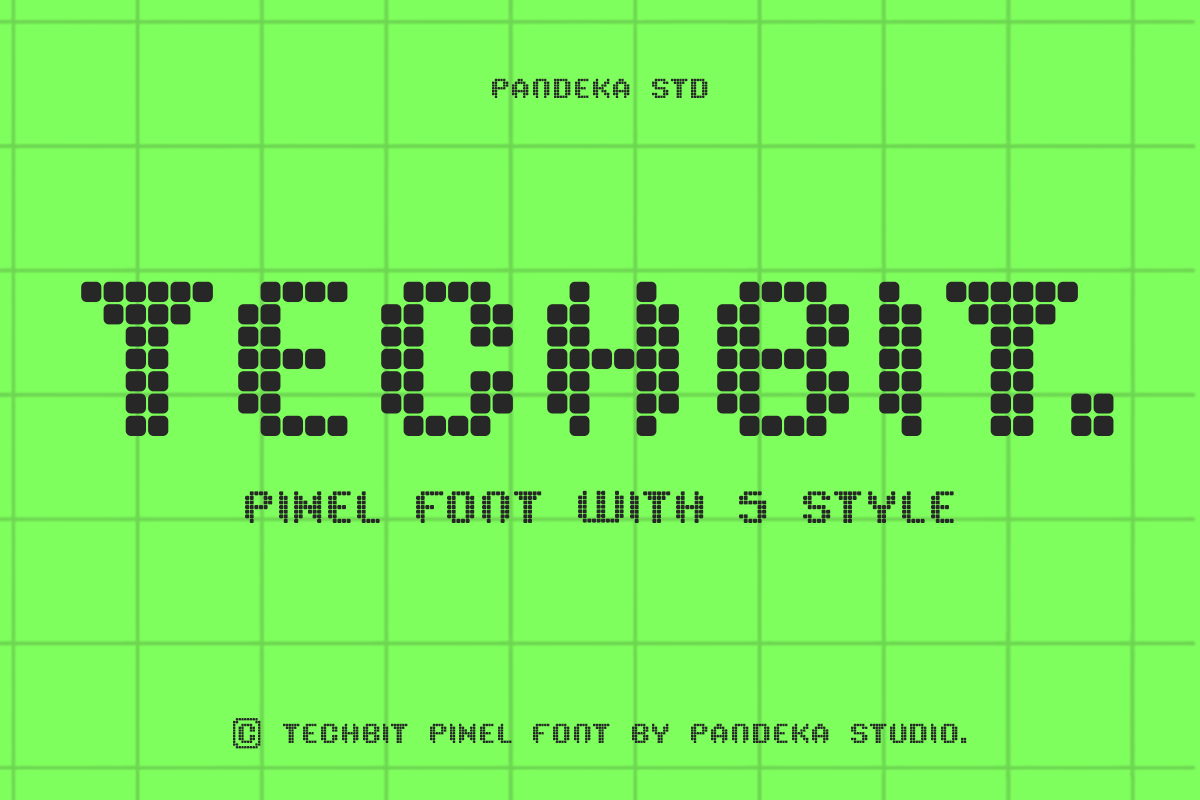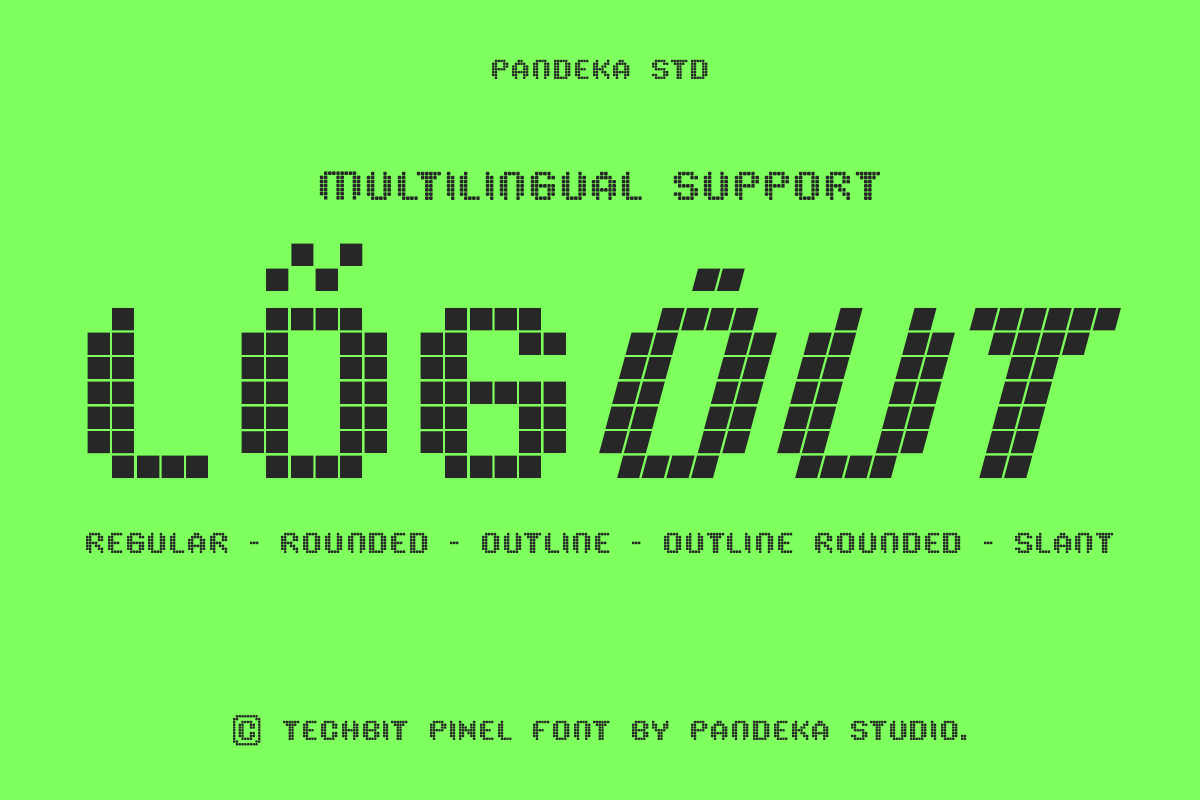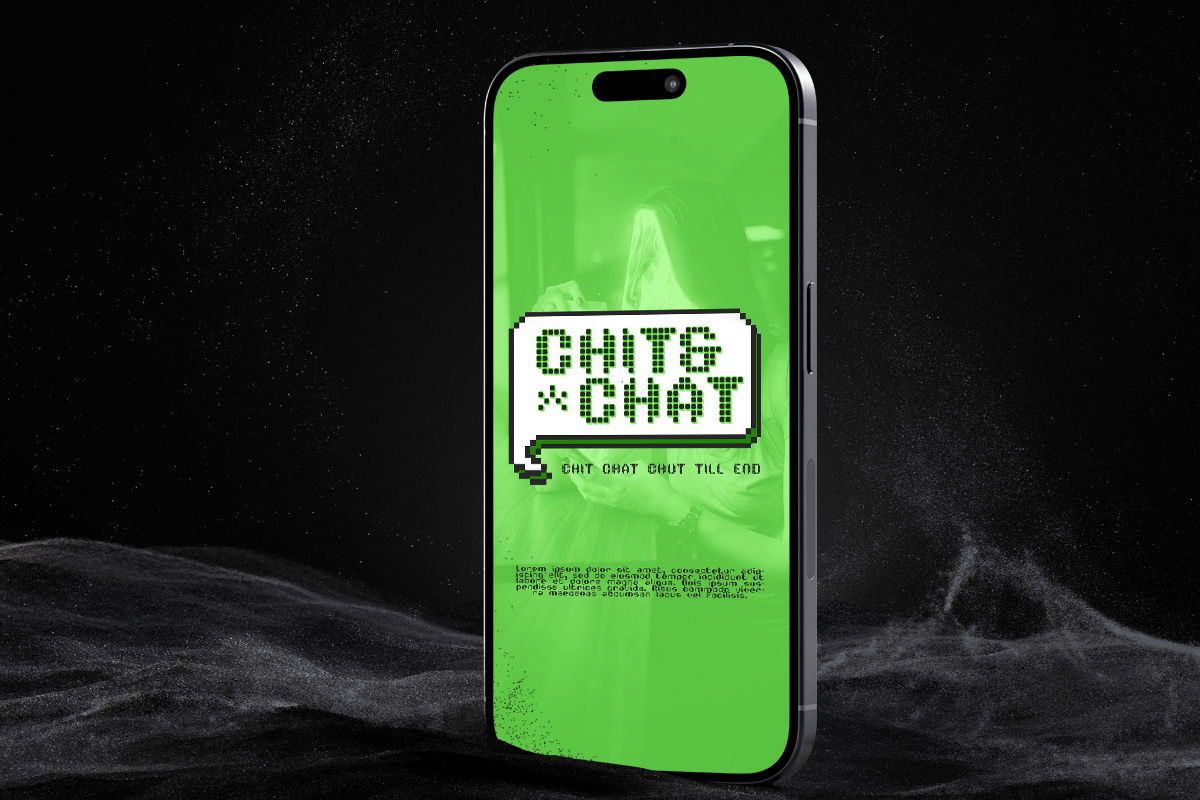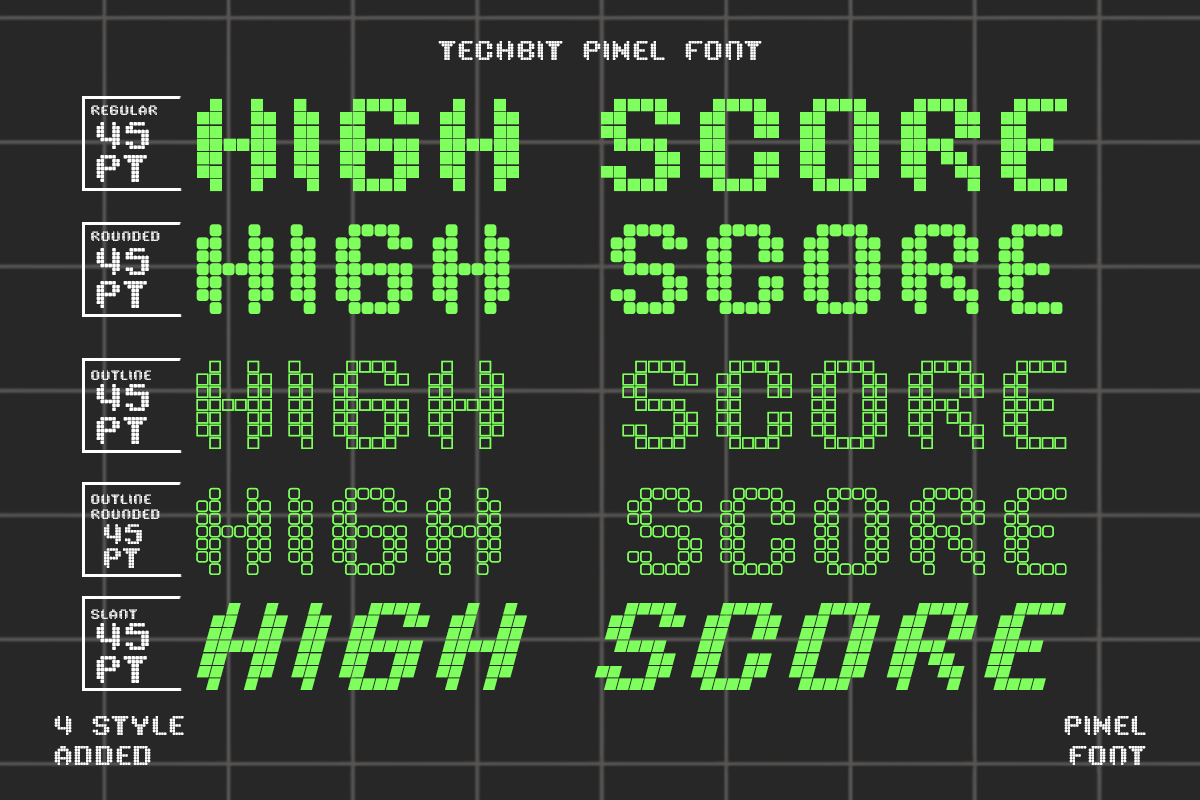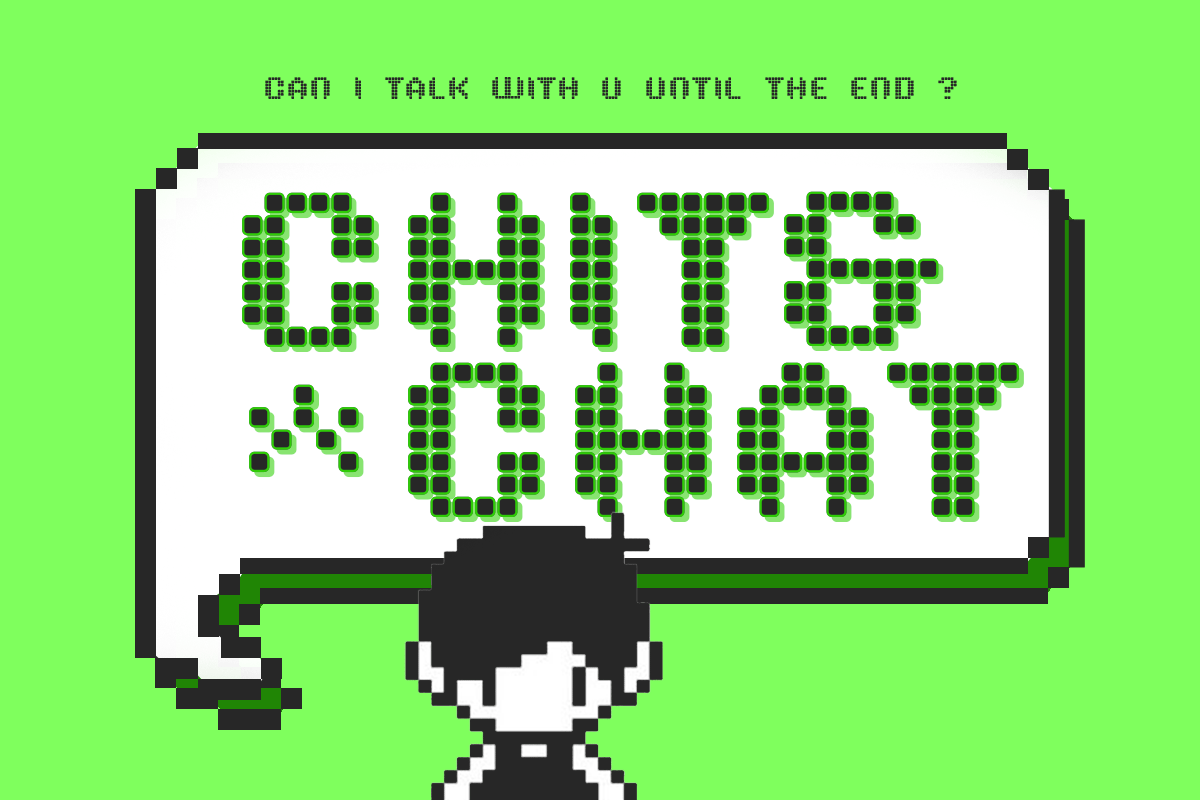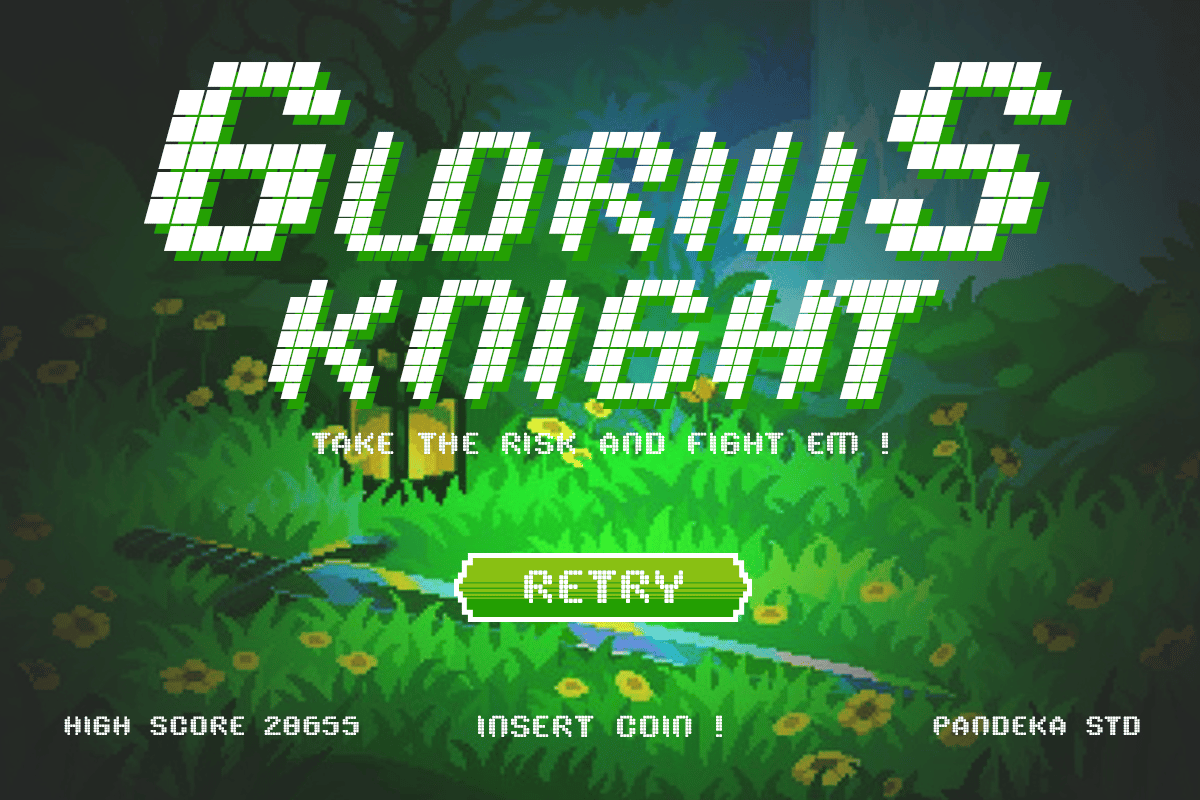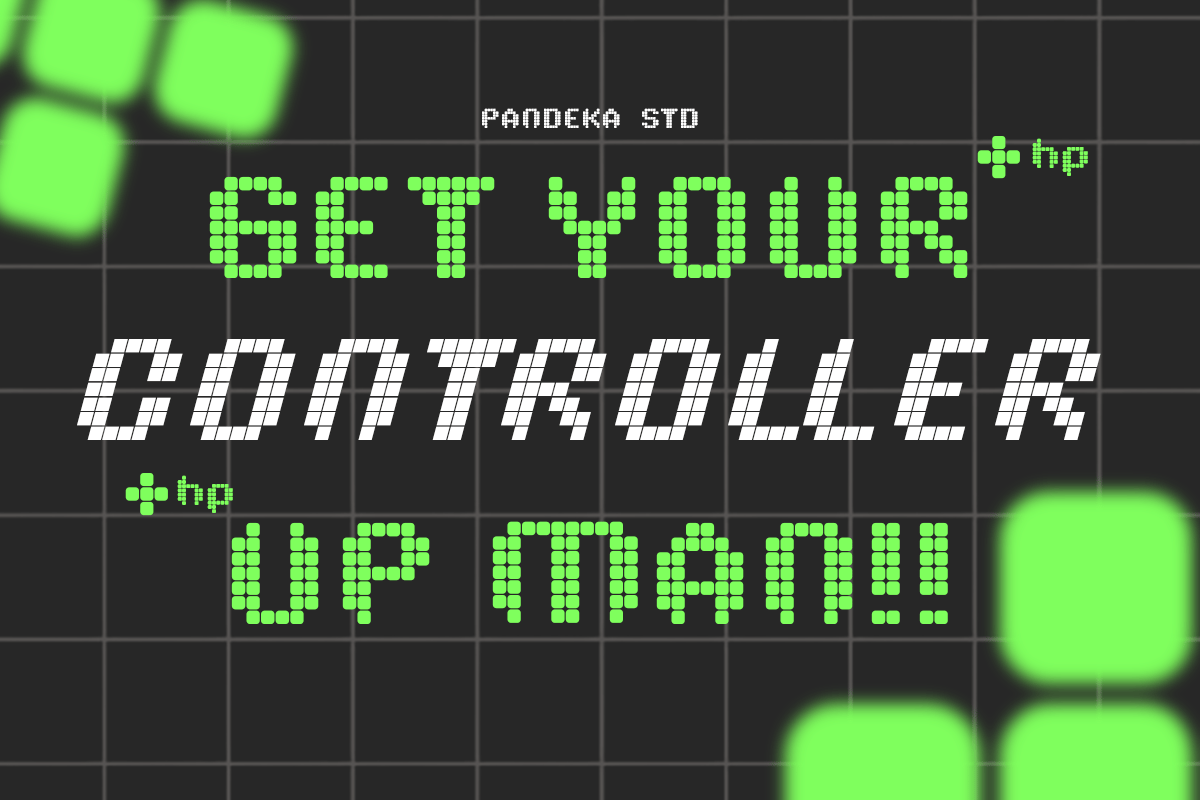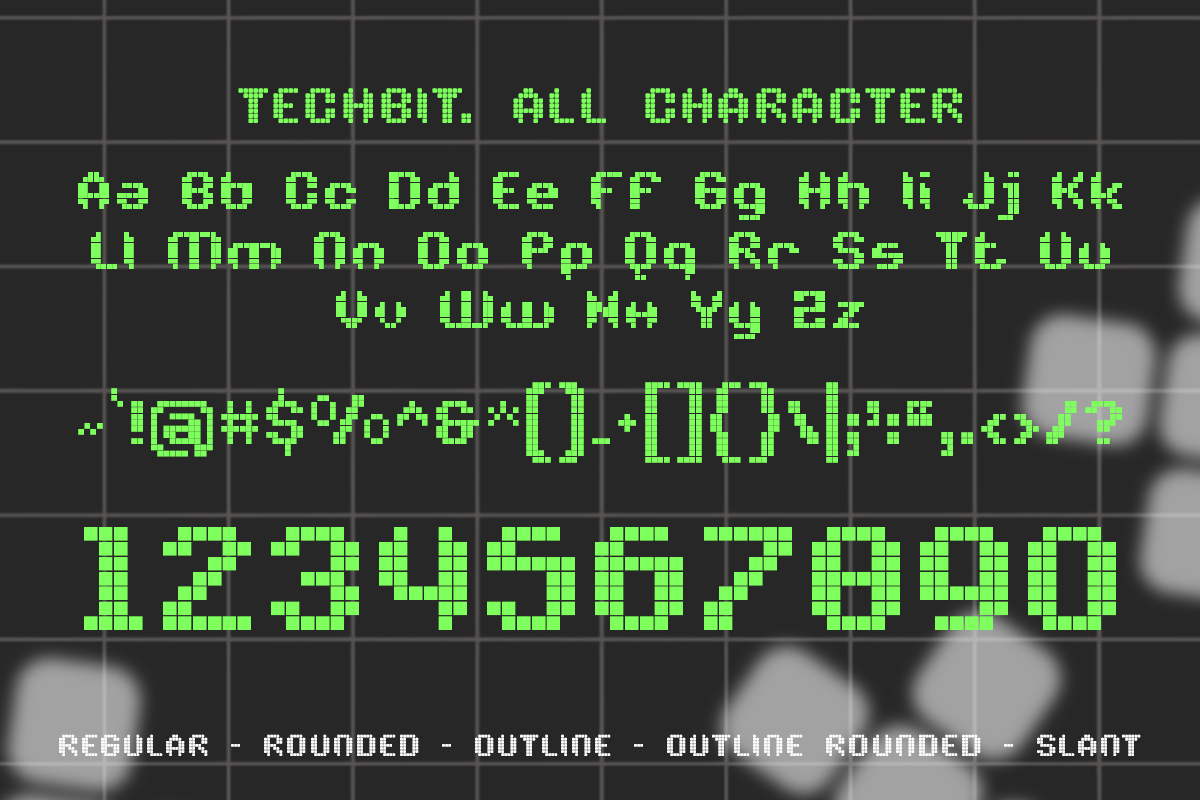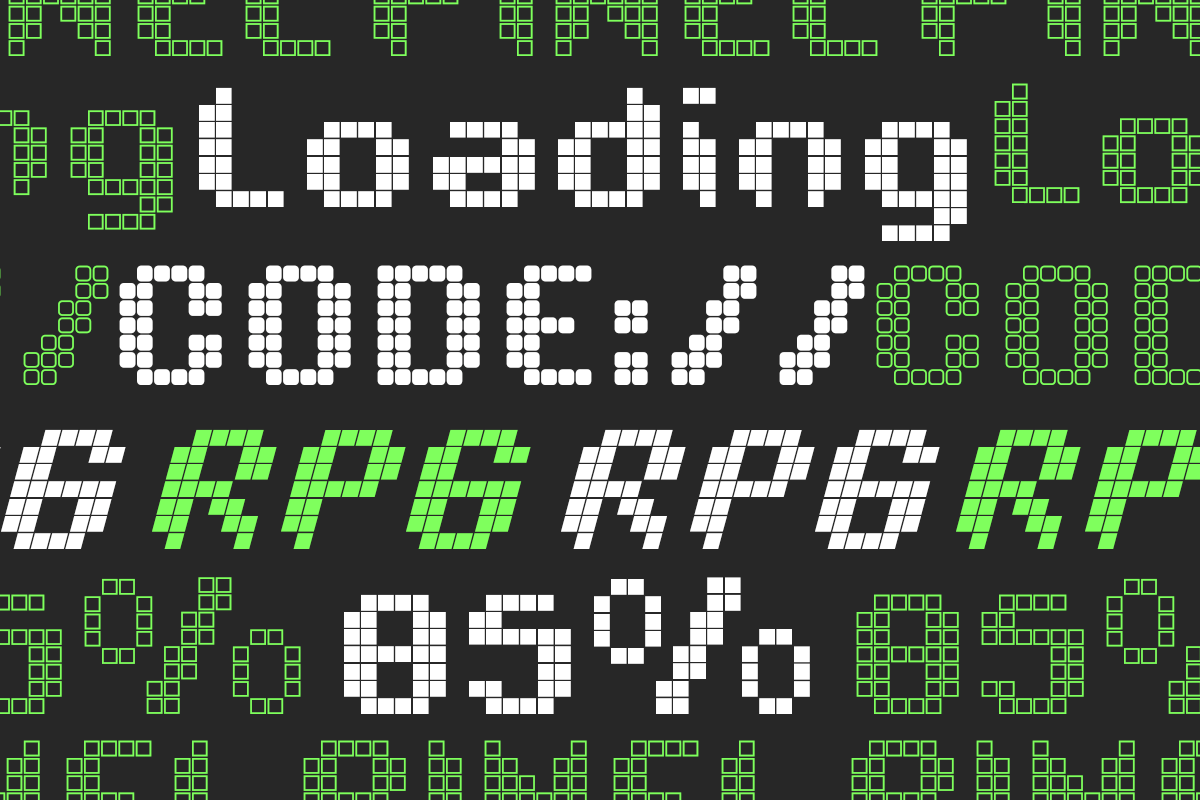
Techbit – Soft Pixel Logo Font
Techbit is a modern pixel font family designed to bring a clean, digital aesthetic to your projects. With its sharp, blocky letterforms and retro pixel-inspired style, Techbit blends nostalgia and simplicity, making it perfect for games, apps, branding, posters, and more. Whether you’re looking for a classic pixel look or a contemporary twist, Techbit delivers versatility and creative potential.
Techbit comes with 5 unique styles: Regular, Outline, Rounded, Outline Rounded, and Slant. Each style provides a distinct vibe, allowing you to mix, match, and create dynamic, eye-catching designs.
- 5 Styles: Regular, Outline, Rounded, Outline Rounded, and Slant
- Complete set: Letters, numbers, symbols, punctuation
Language Support: Danish, English, Estonian, Filipino, Finnish, French, Friulian, Galician, German, Gusii, Indonesian, Irish, Italian, Luxembourgish, Norwegian Bokmål, Norwegian Nynorsk, Nyankole, Oromo, Portuguese, Romansh, Rombo, Spanish, Swedish, Swiss-German, Uzbek (Latin)